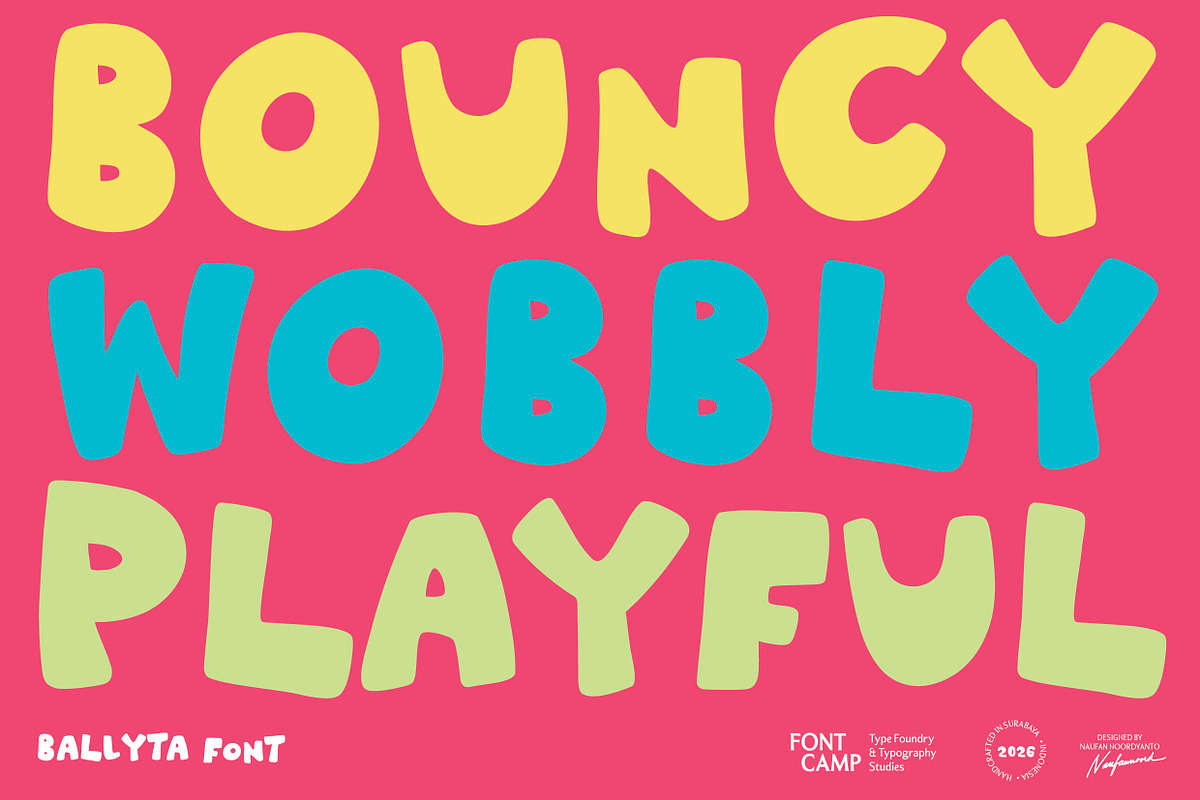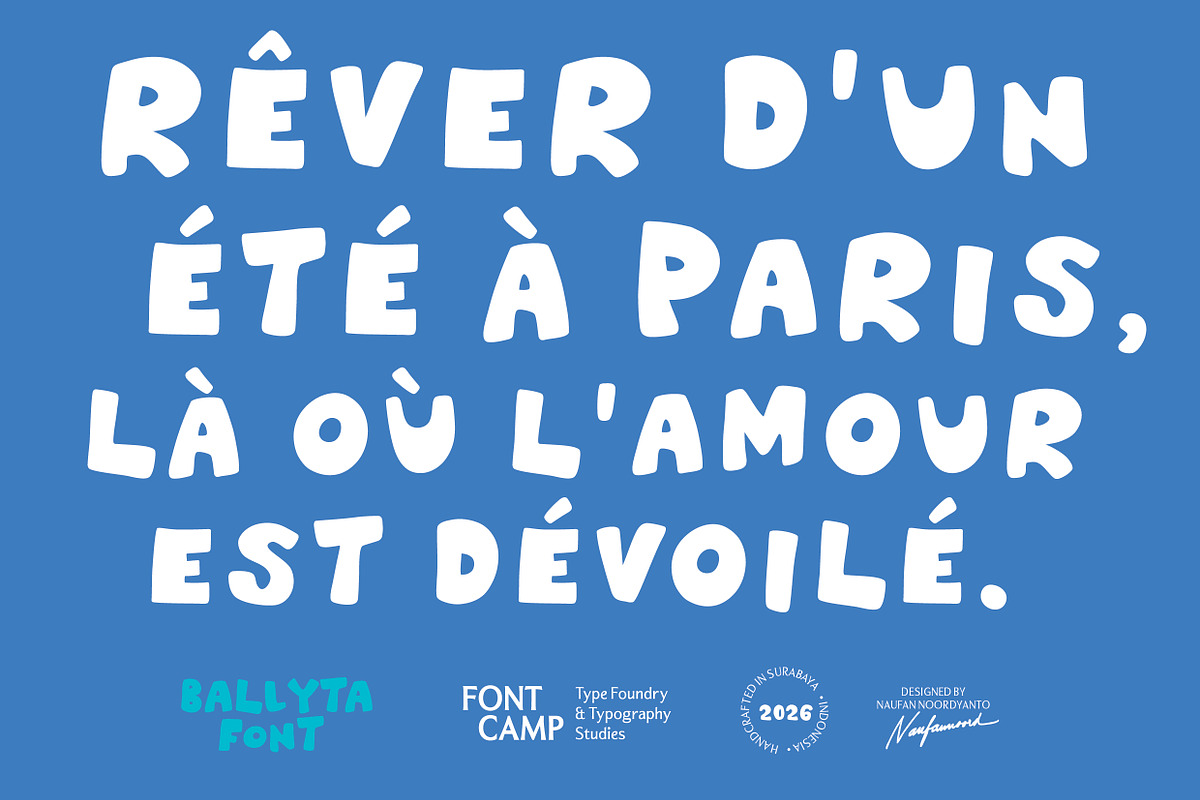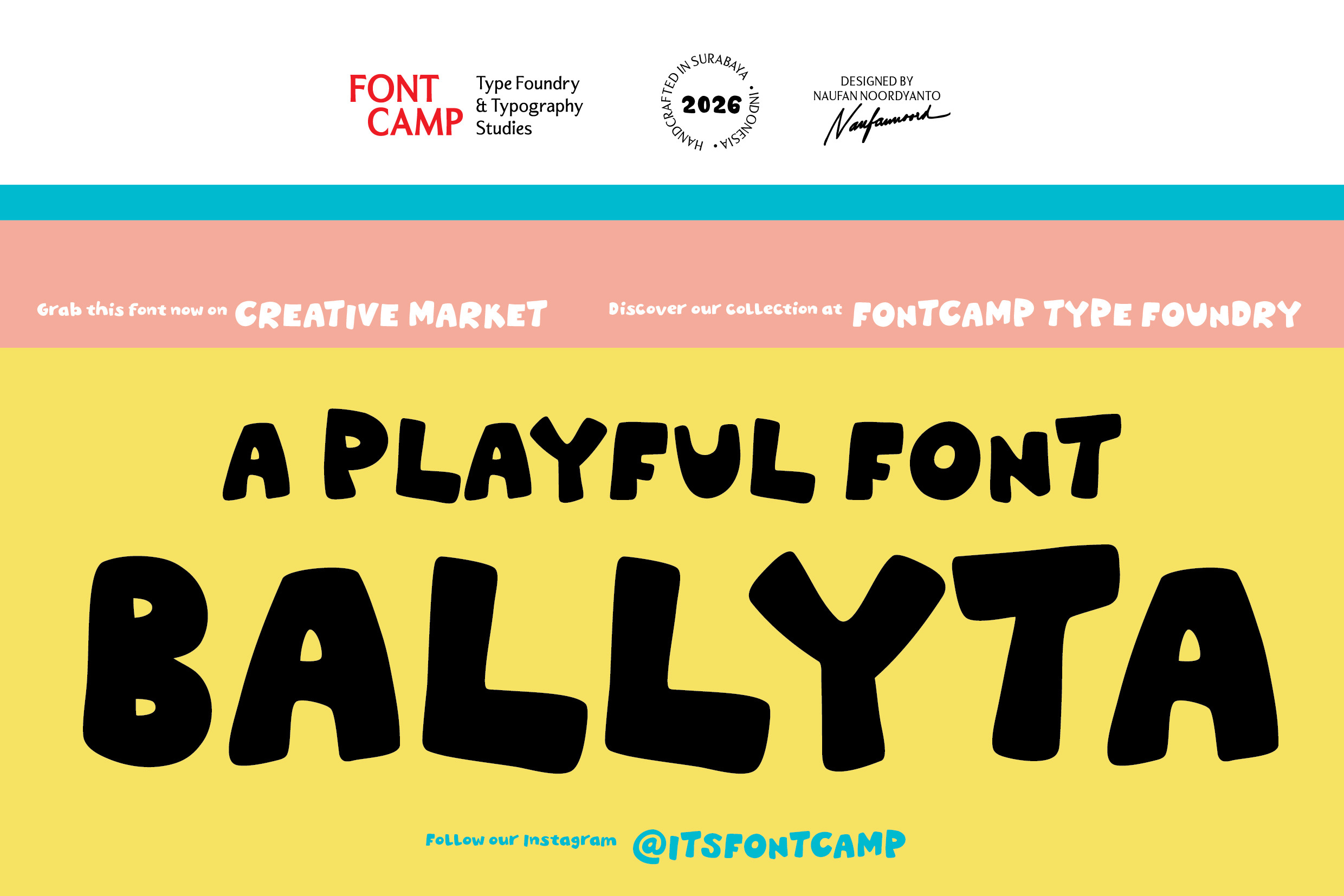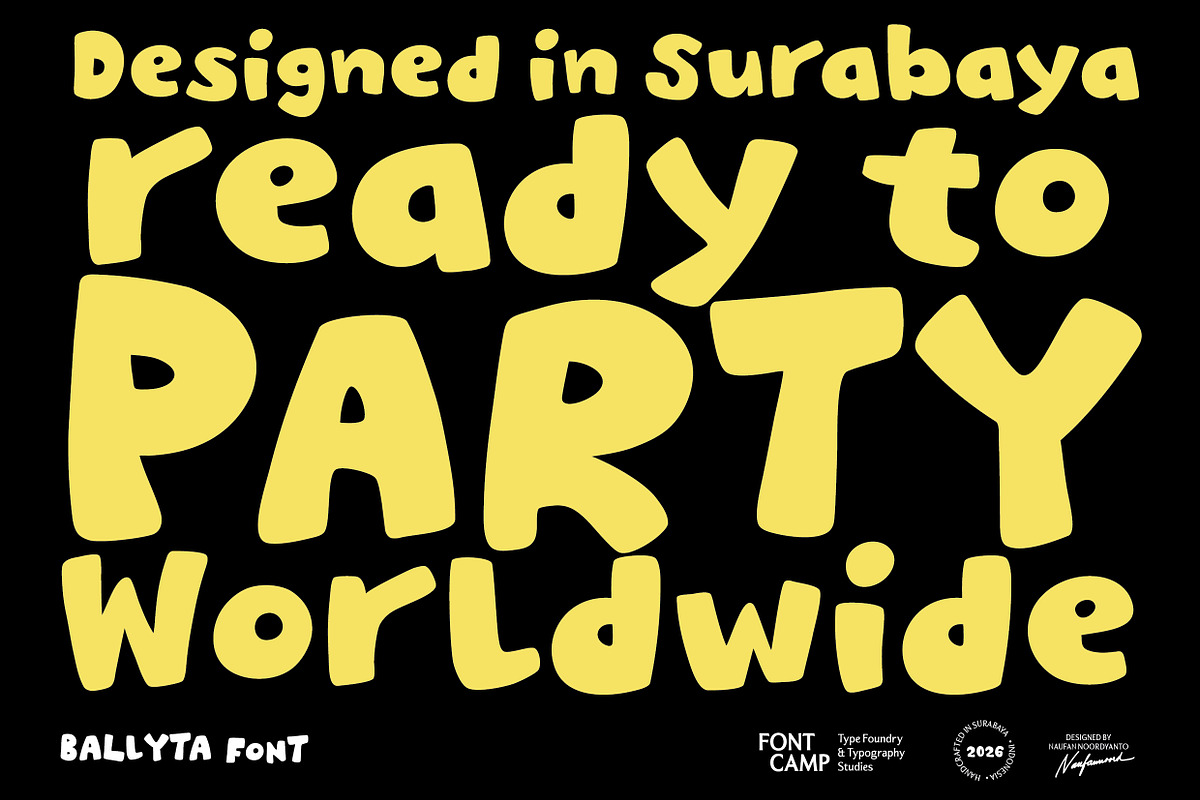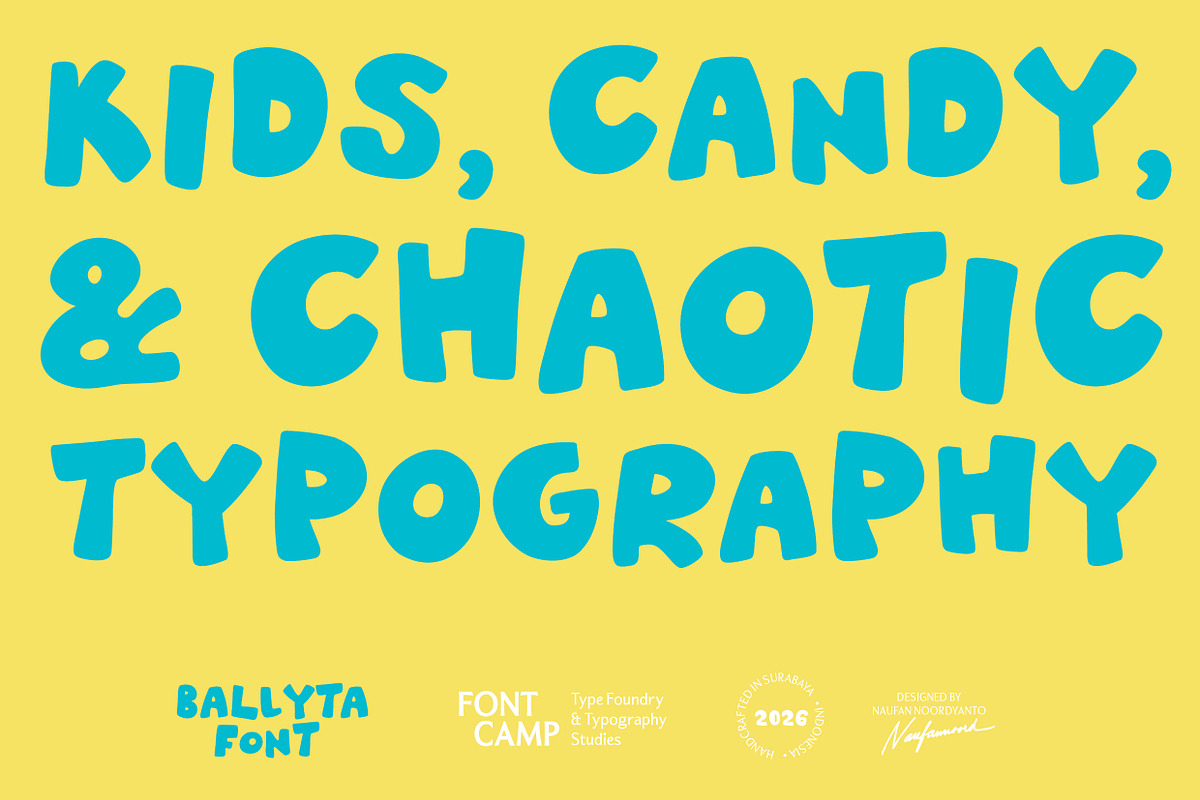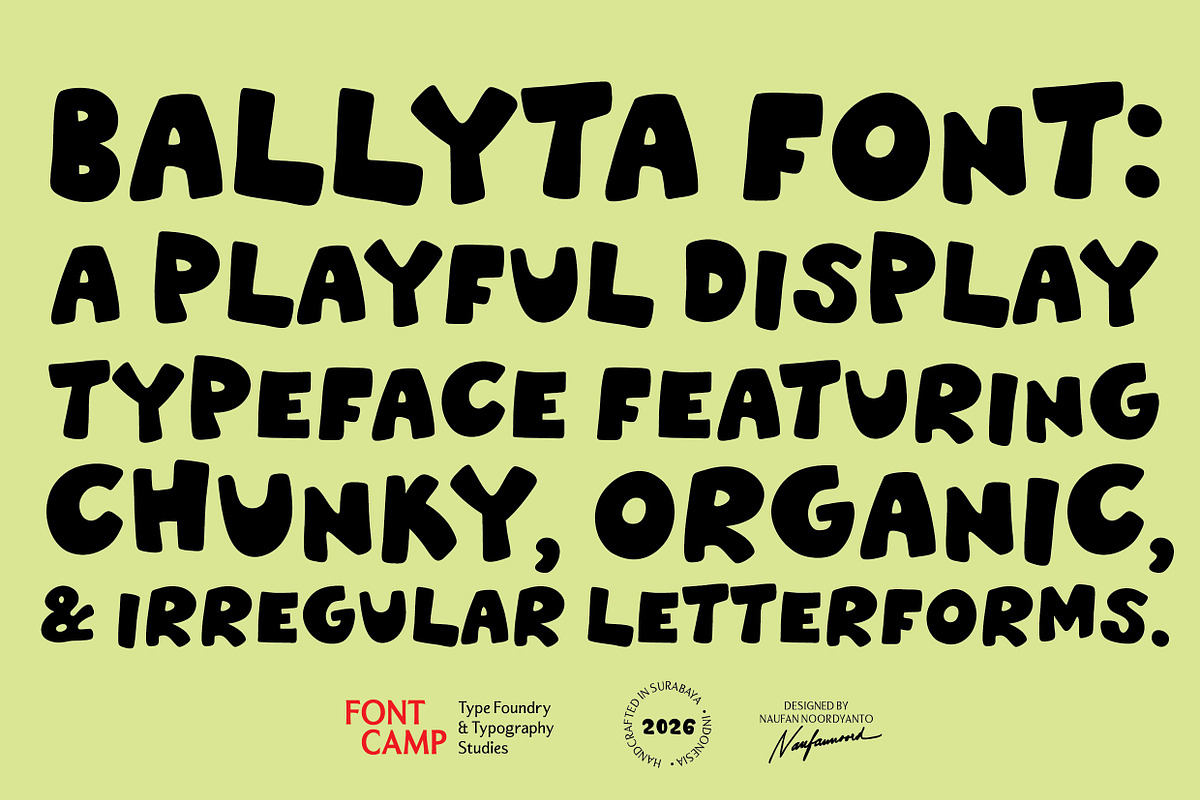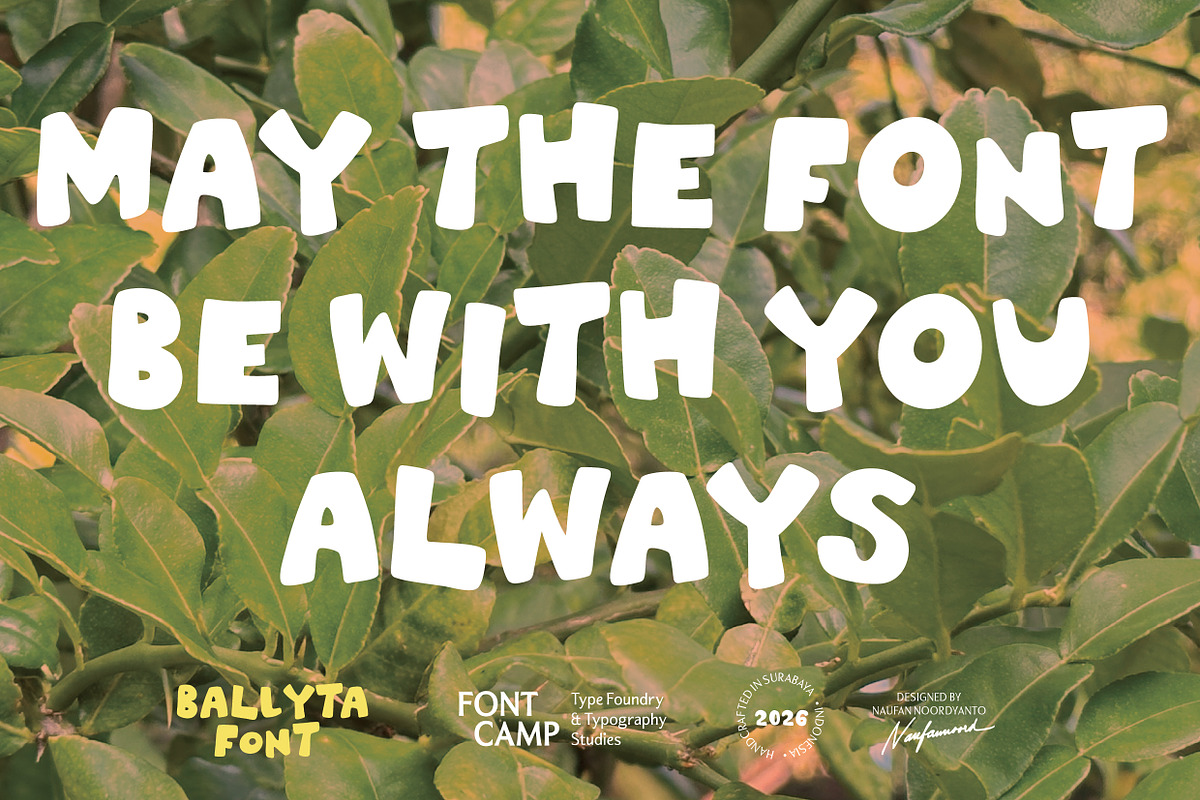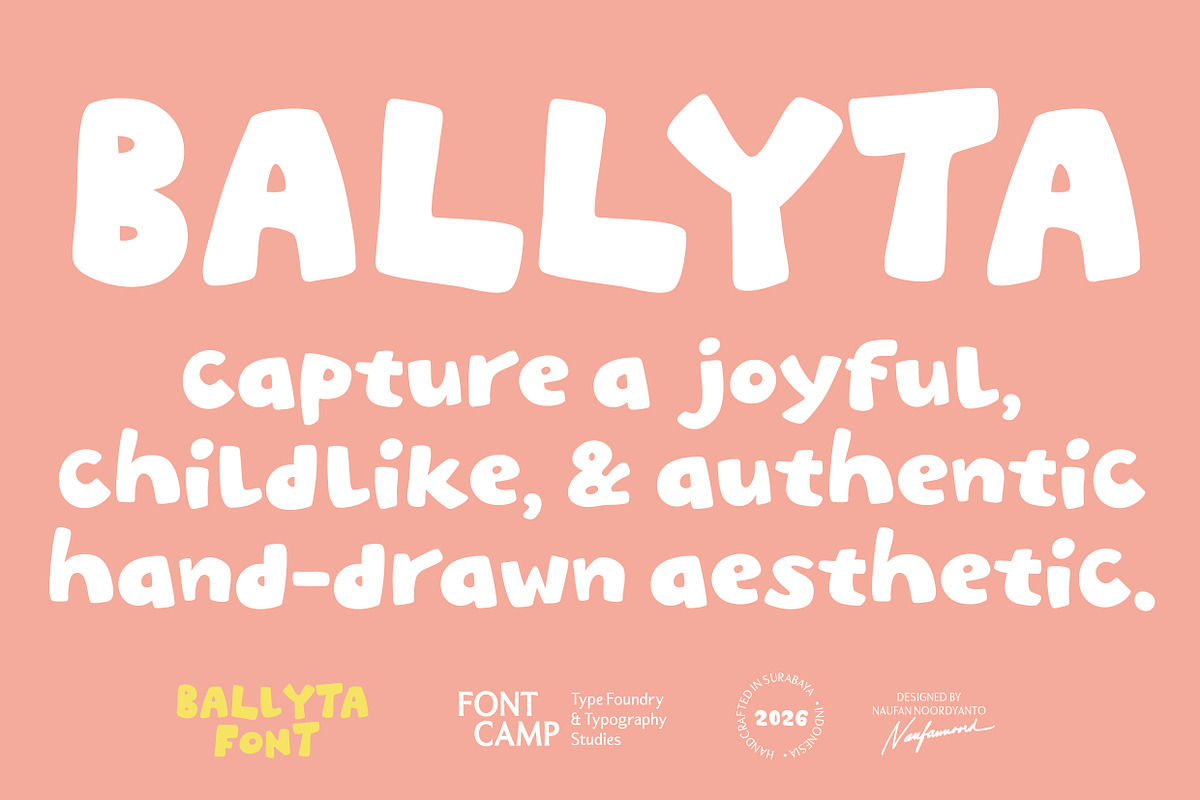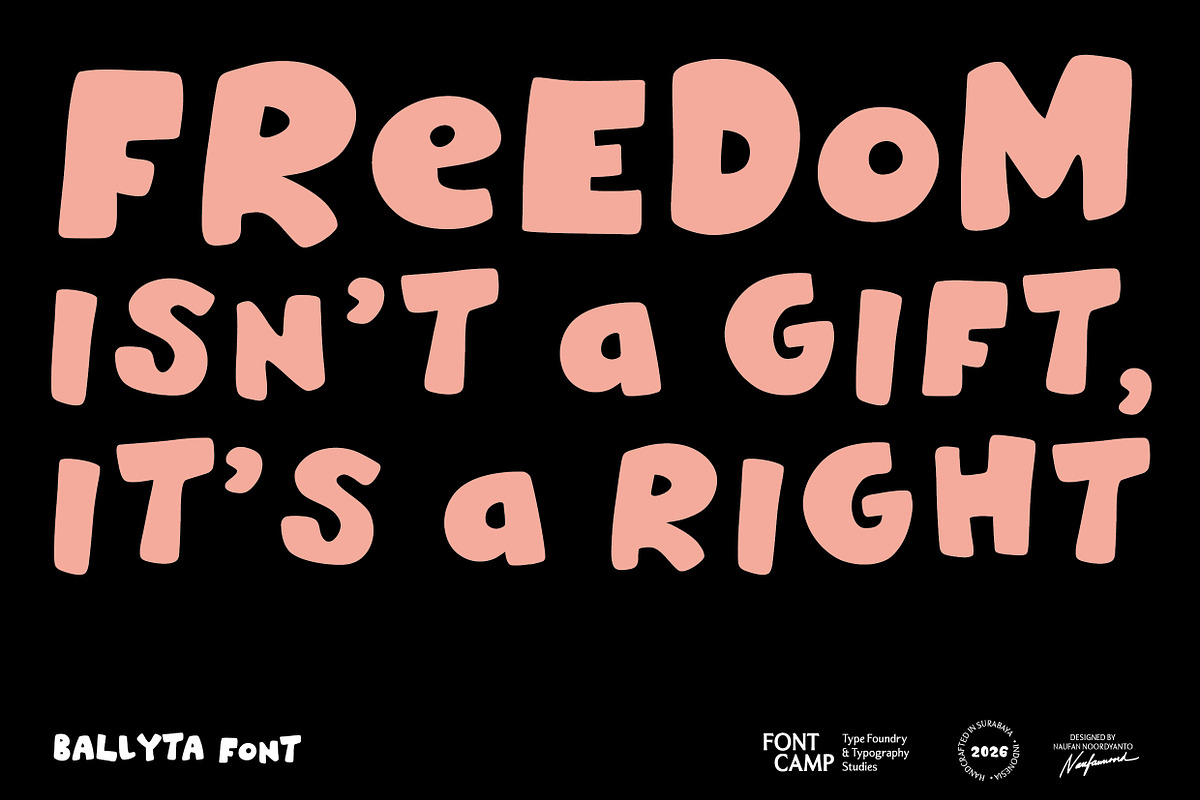
Ballyta Font
Introducing an "BALLYTA FONT".
DESCRIPTION:
"Ballyta," a playful twist on the Indonesian word "Balita" meaning toddler, directly hints at a font character that is light, cheerful, and possibly evokes a childlike or cute impression.
Ballyta is a display typeface defined by its chunky, organic, and irregular letterforms, which collectively capture a joyful, childlike, and authentic hand-drawn aesthetic. Its distinctively non-uniform strokes and playful proportions give it an approachable, whimsical personality that feels both human and energetic, moving away from rigid or strictly geometric construction.
Due to its vibrant and friendly character, Ballyta is highly suitable for design projects that require a warm and engaging tone. It is an excellent choice for children's books, packaging for toys or snacks, cheerful social media headers, and casual event branding where a bold, hand-crafted, and lighthearted look is desired to capture immediate attention.
TECHNICAL SPECIFICATIONS & CAPABILITIES
\\-Expansive character library: engineered with 366 meticulously crafted glyphs, providing full coverage for high-impact displays, symbols, and comprehensive punctuation.
Commanding uppercase and lowercase design: specially structured as a full uppercase and lowercase typeface, optimized for heavy headlines, bold logotypes, and tactical branding.
Global linguistic support: built with an extended character set to ensure seamless compatibility with multiple languages.